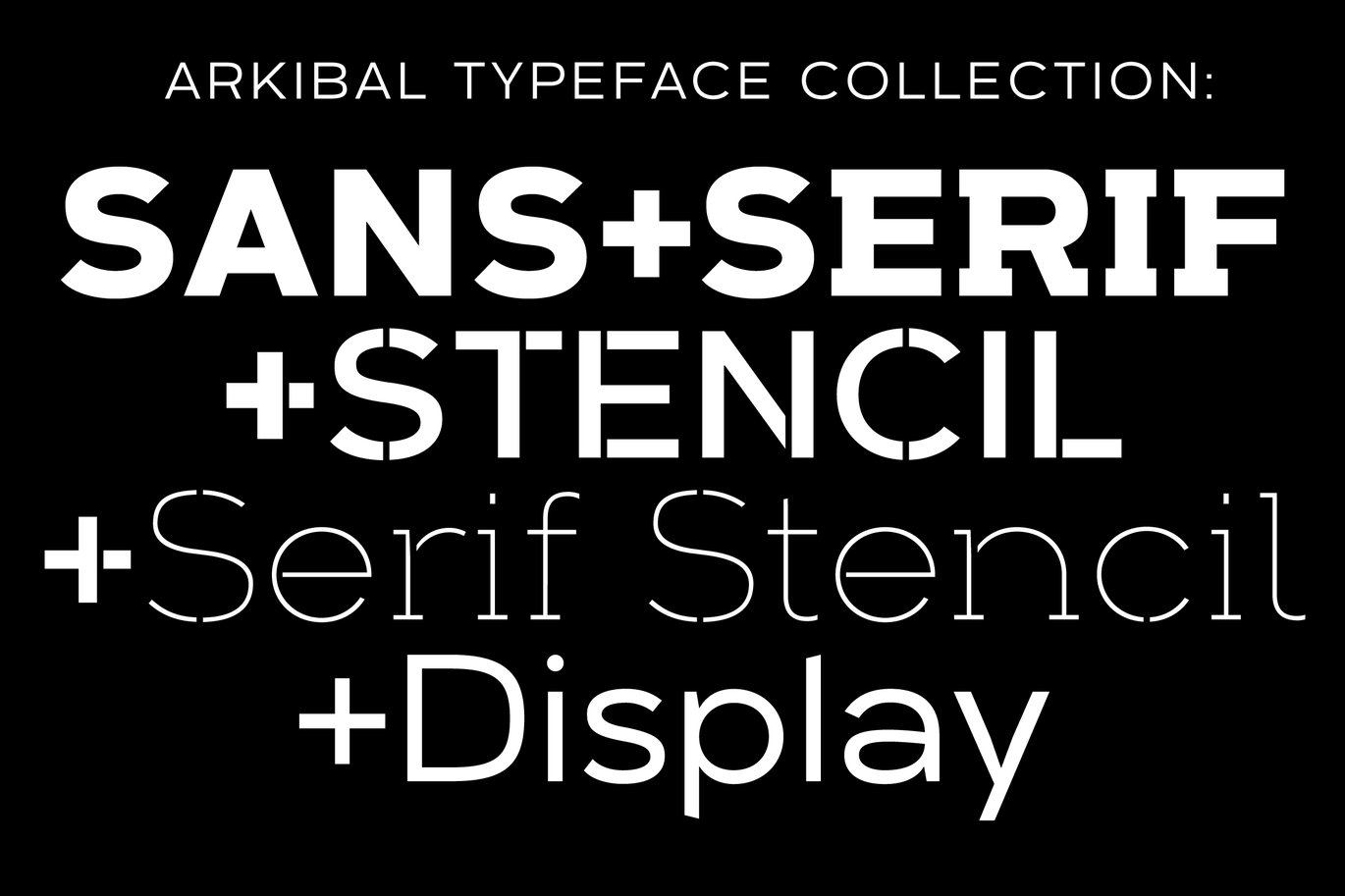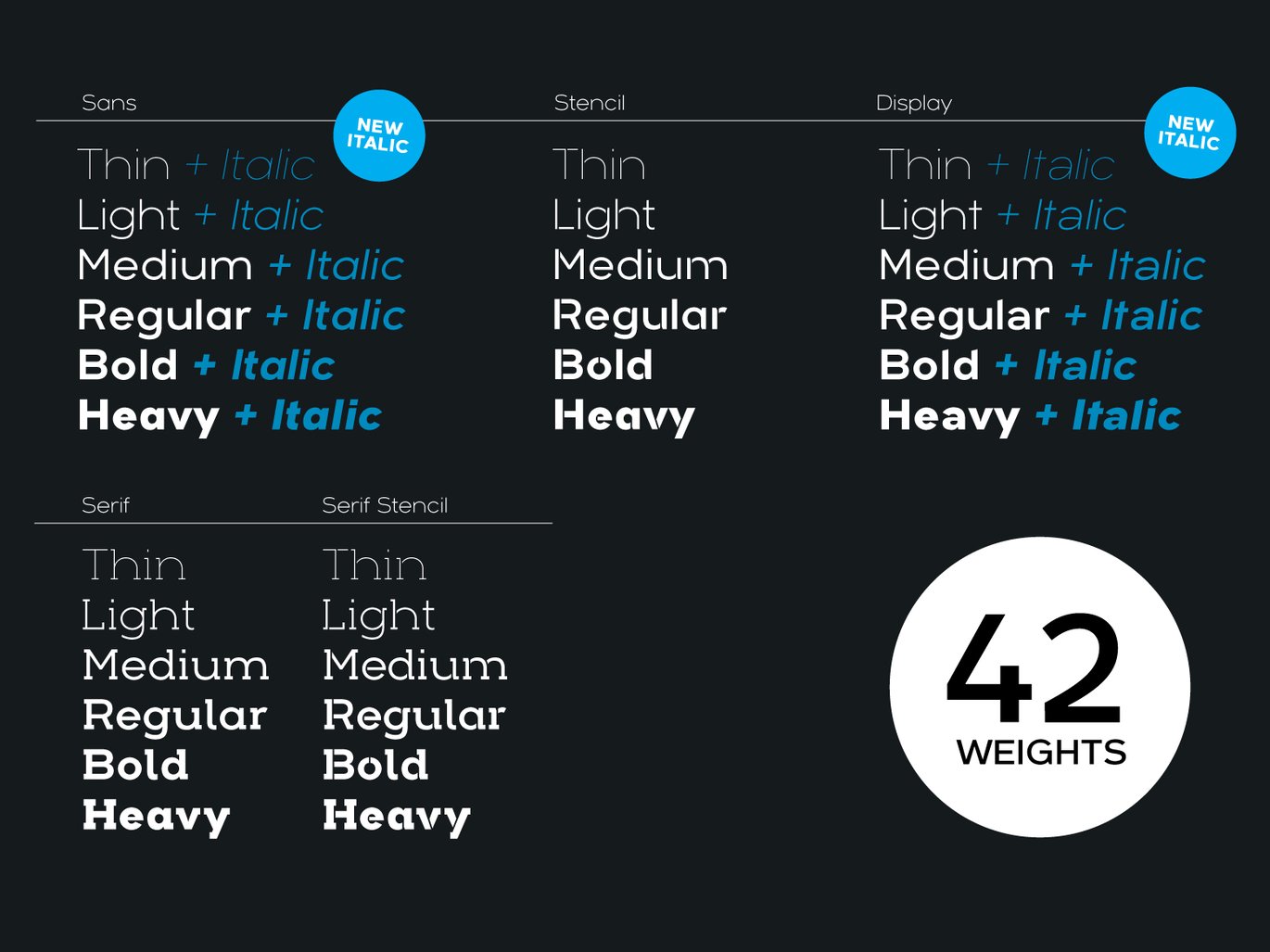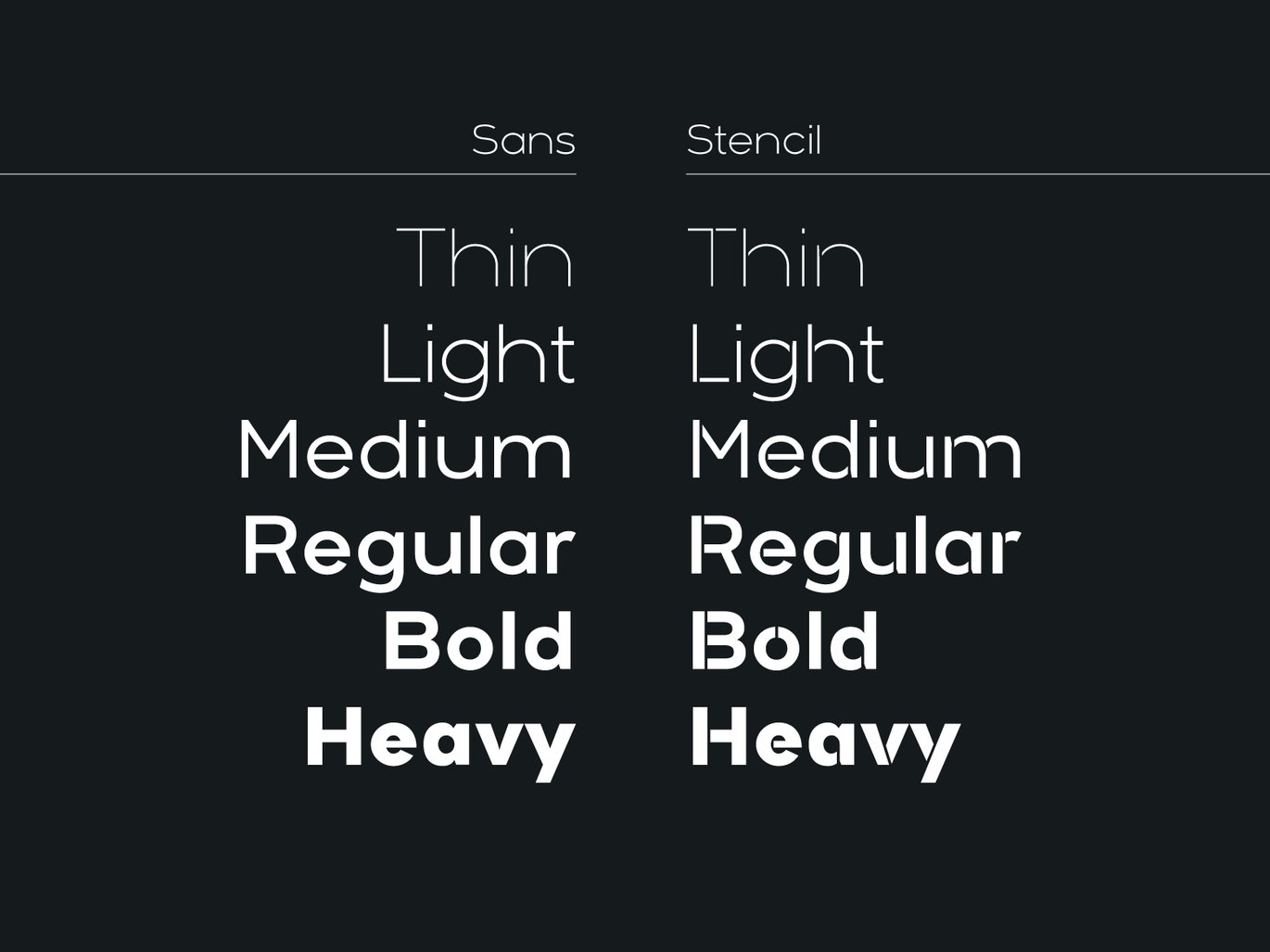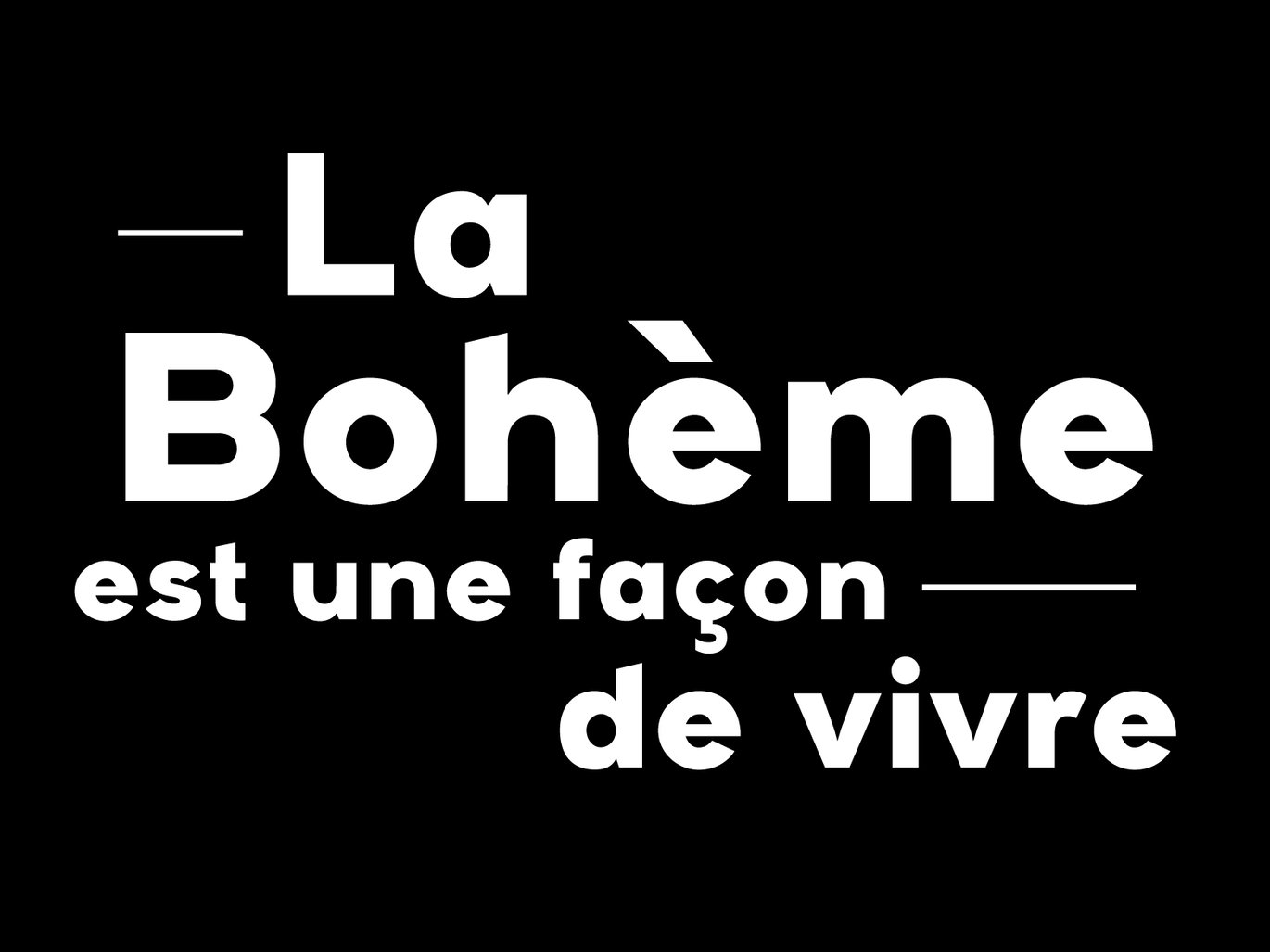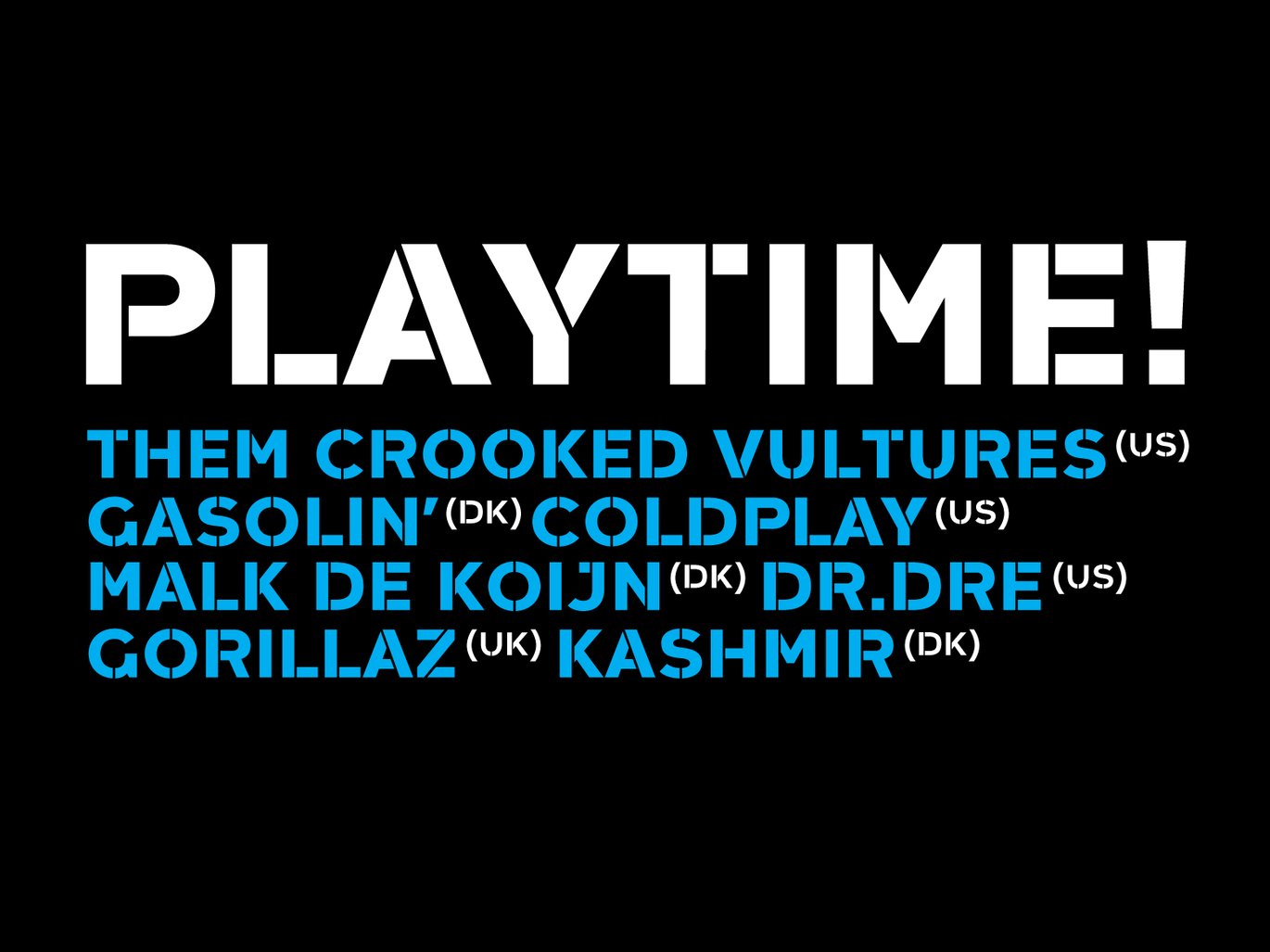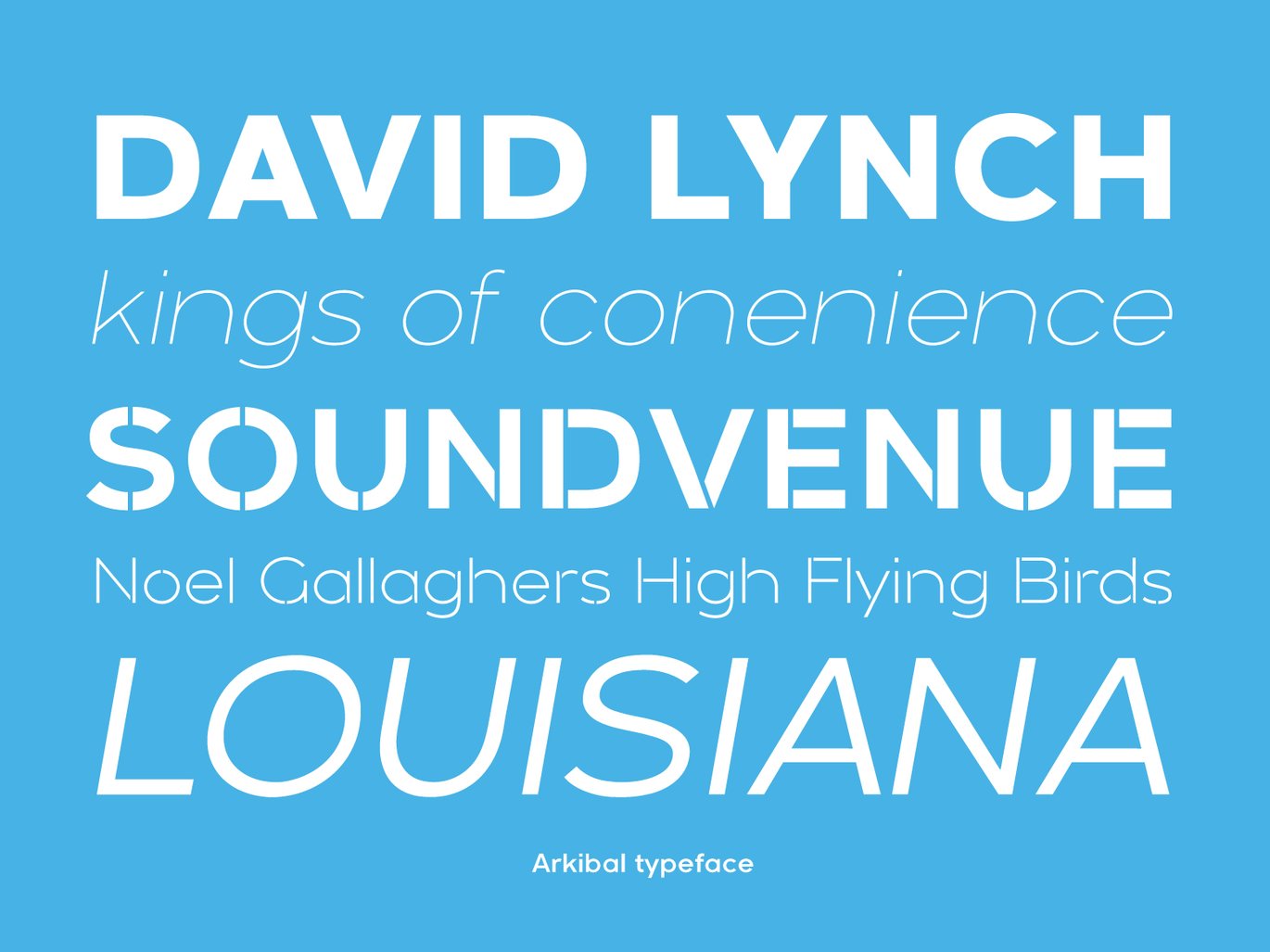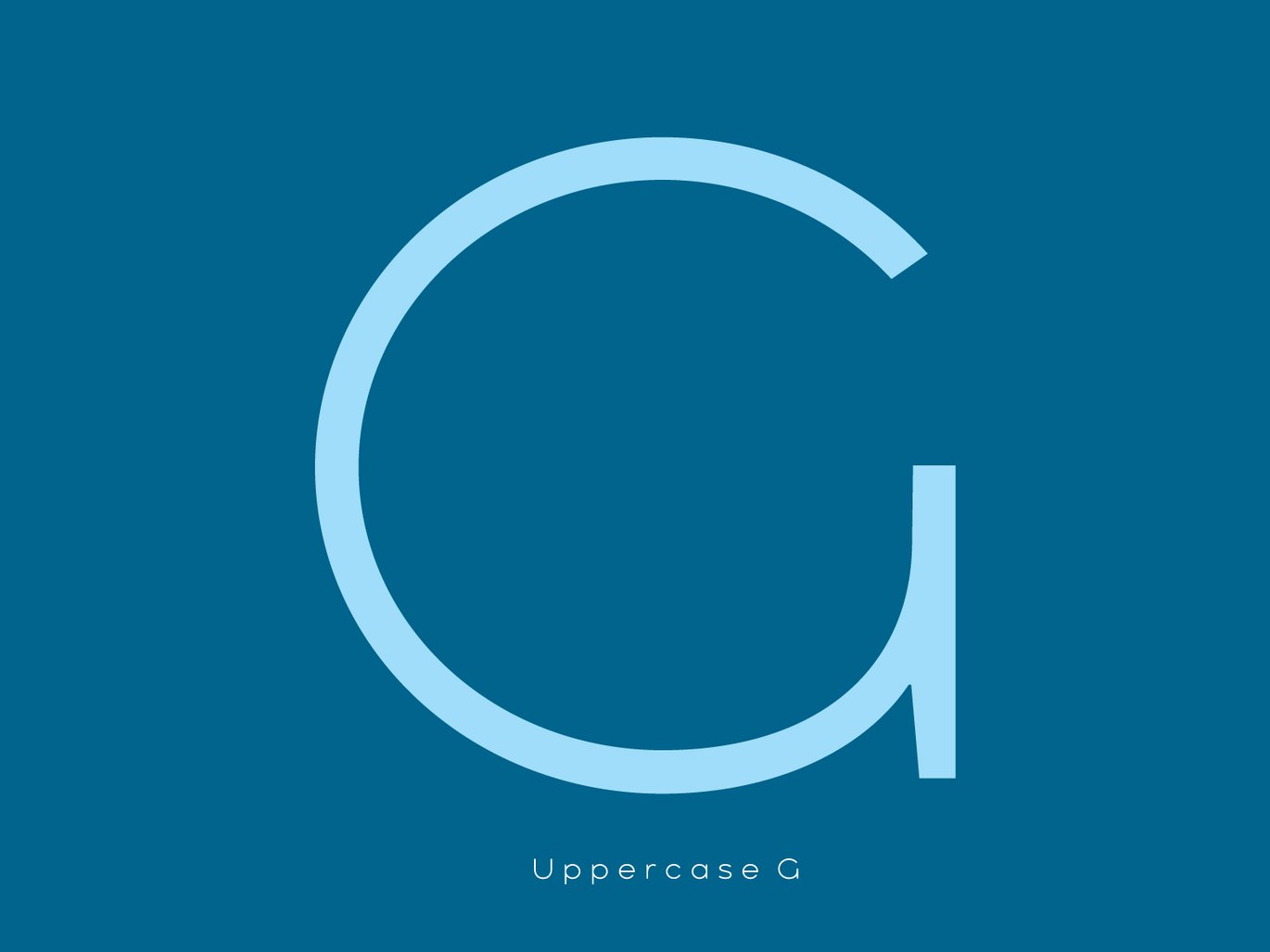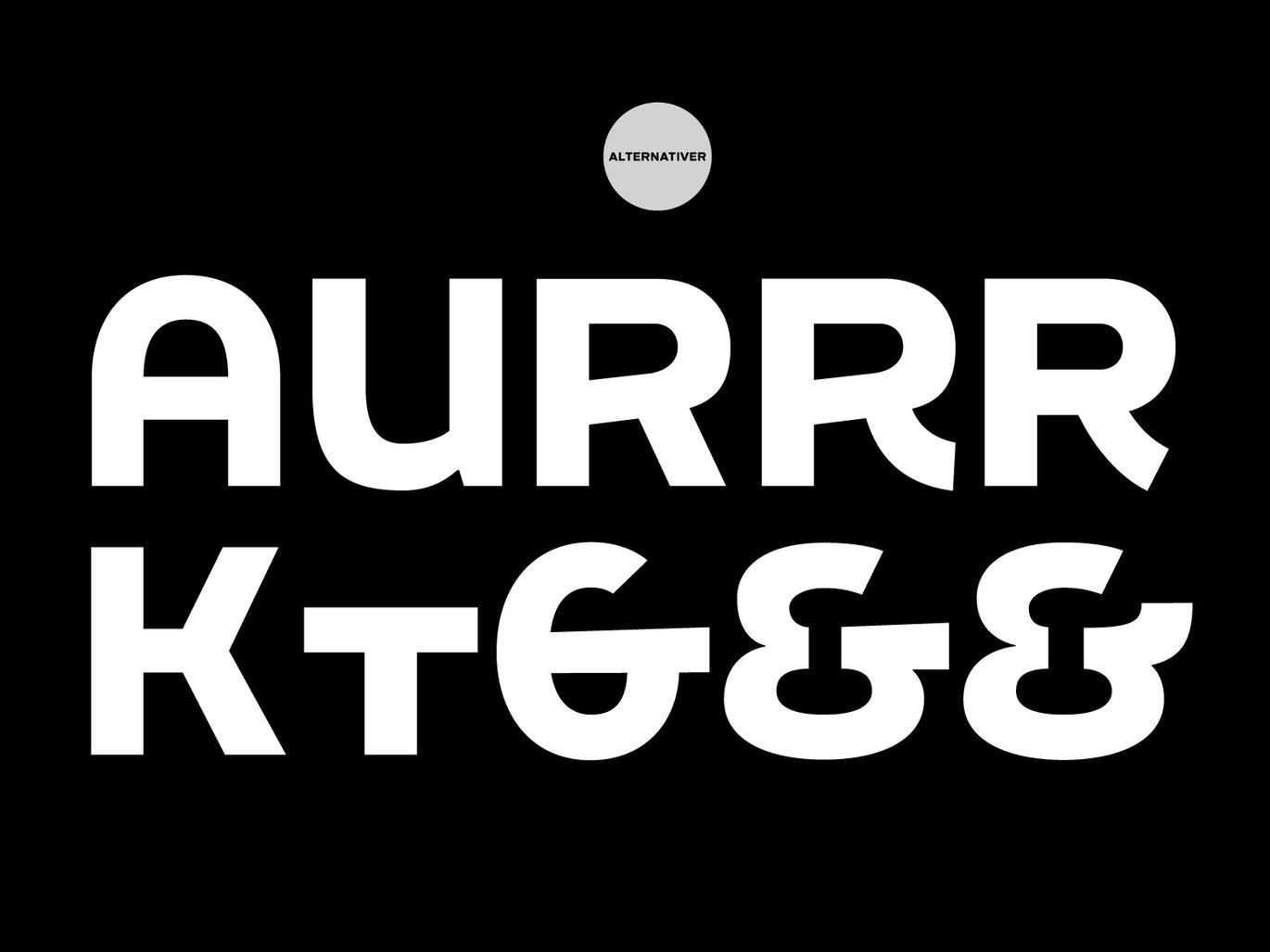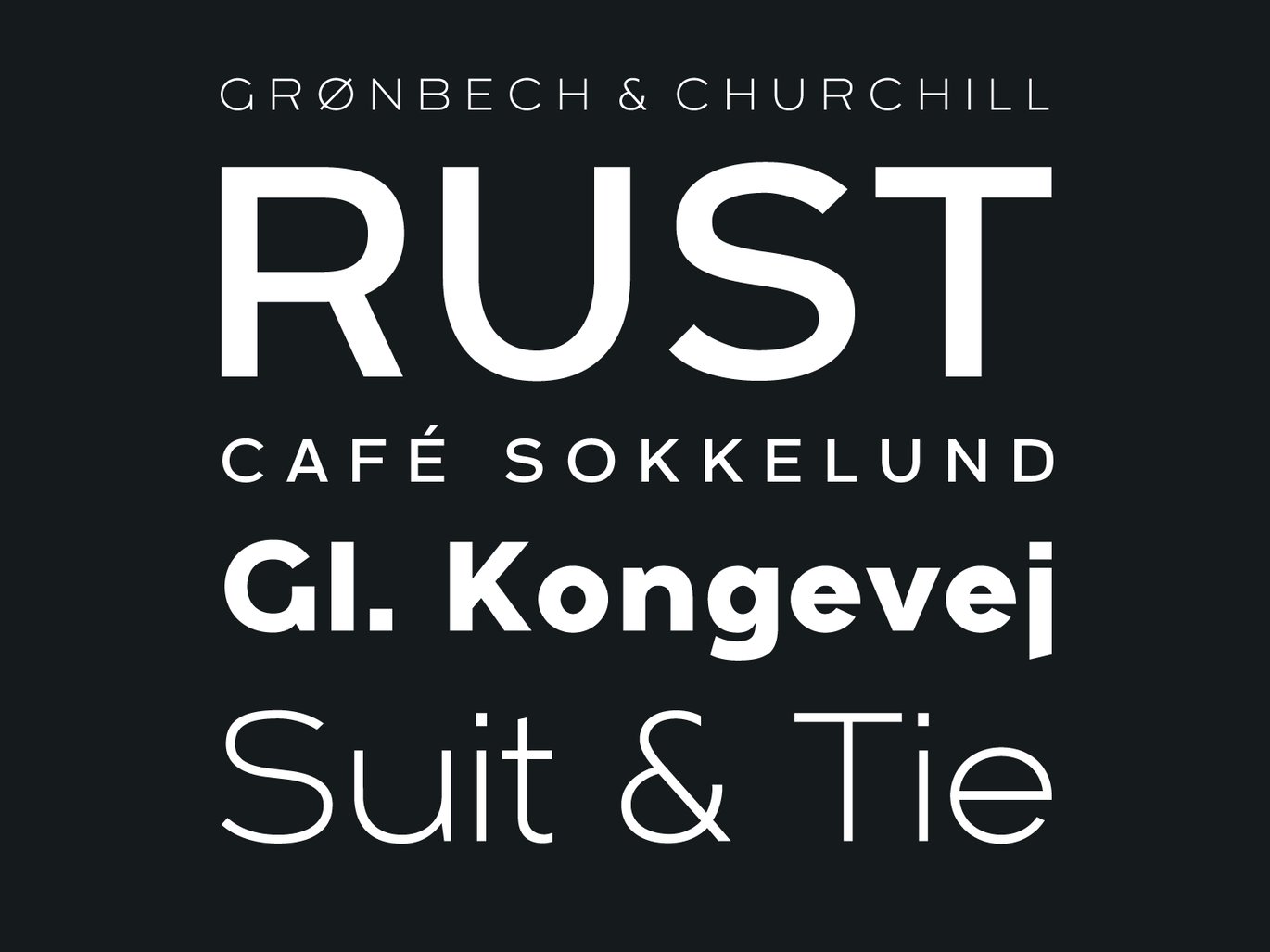
Arkibal Typeface Collection
Get all the Arkibal typeface in one collection. It contains Sans (18 Weights) – Serif (6 Weights) – Serif Stencil (6 Weights) Display (12 Weights)
The inspiration comes from some old documents and store signs from my great-grandfather’s old gold listfactory from 1838. He delivered hits for many artists of that time, and various museums in Copenhagen. I priority increases to make a mixture of the classic letter witha modern lift. And this contain also a serif og display version.
Seems it was interesting to try to reproduce some of the old characters and make a new font. Uppercase “G” was the first letter of the startingpoint. G stands for in danish “Guldramme”, which means “Goldframe”. Arkibal is coming from an almost old danish tradional name “Arkibald”, only without “d”.